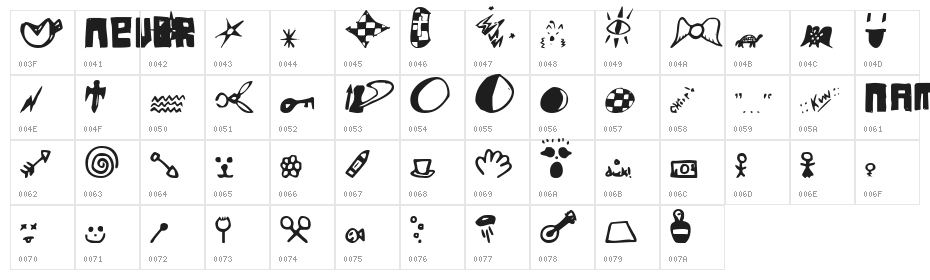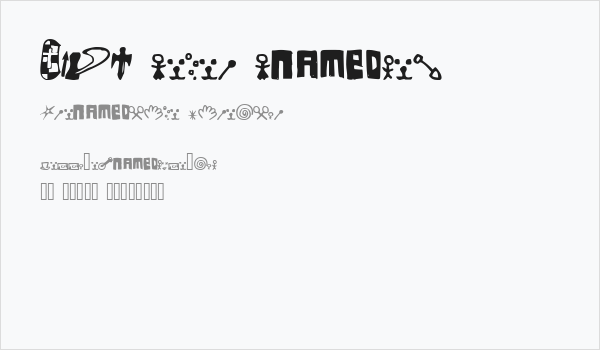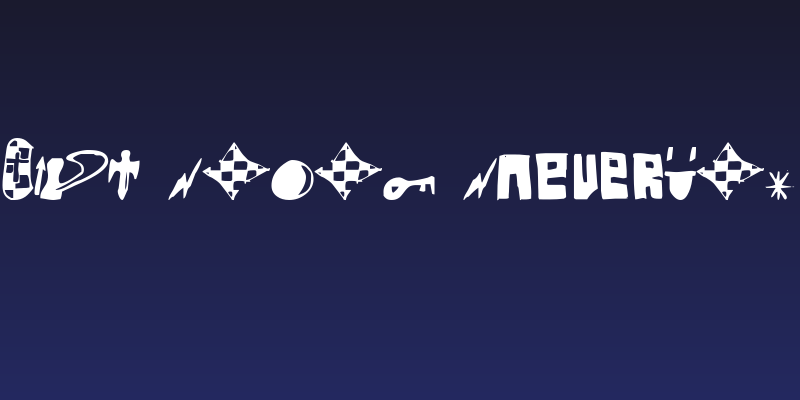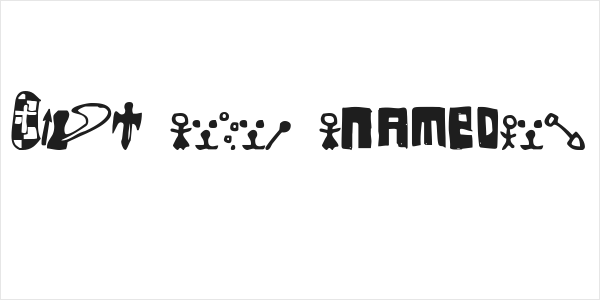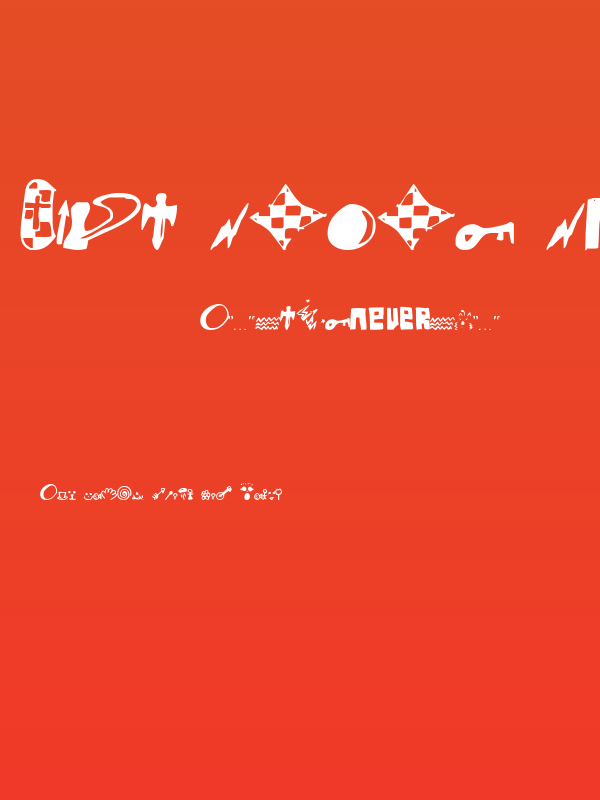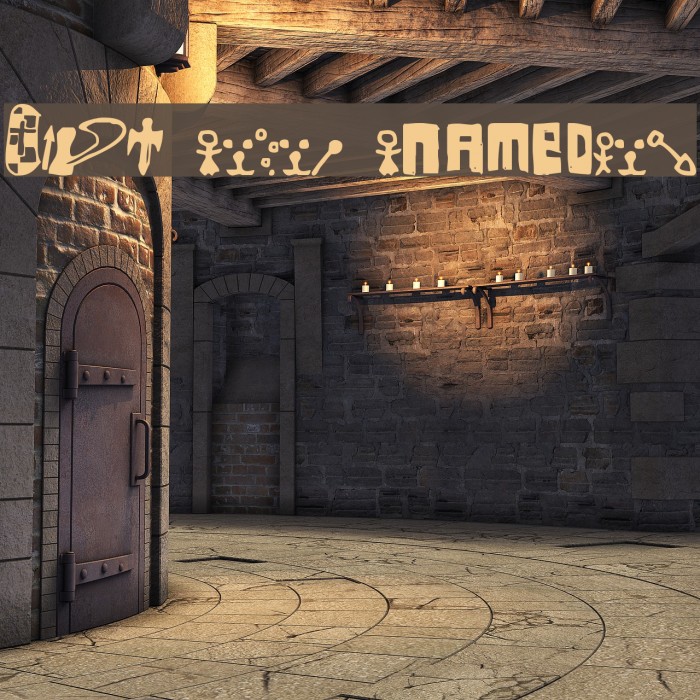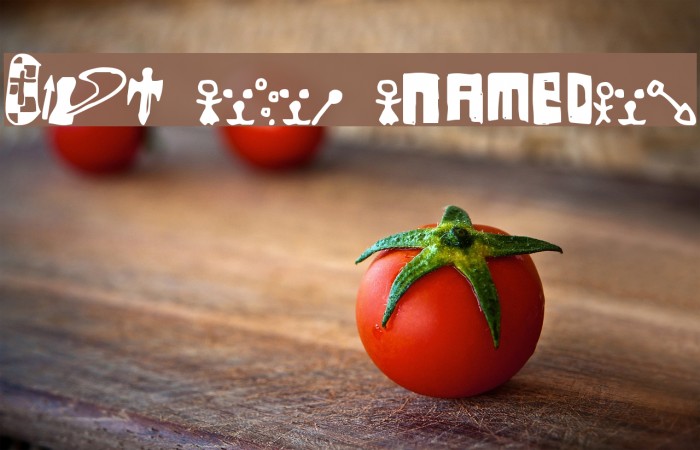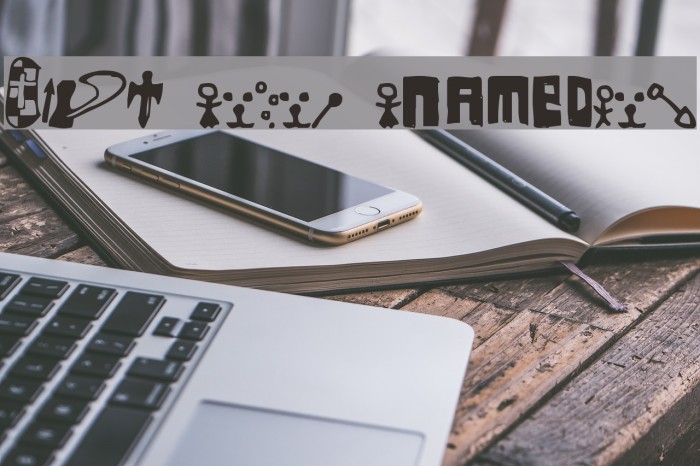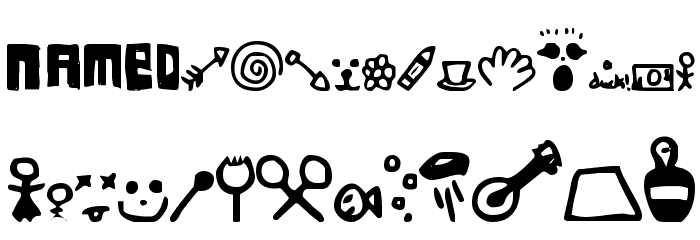
FSO never named Font
FSO never named Description
This is not a valid font. The image contains a series of abstract and decorative symbols that do not correspond to a traditional alphabet or numeric system. The symbols are varied and include shapes resembling stars, eyes, and other abstract forms. These elements are more illustrative and artistic, lacking the uniformity and structure typical of a standard typeface.
| Use Case | Artistic illustrations, decorative elements. |
| Proposed Projects | This set of symbols could be used for creative design projects, such as logos, artistic illustrations, or as decorative elements in graphic design. |